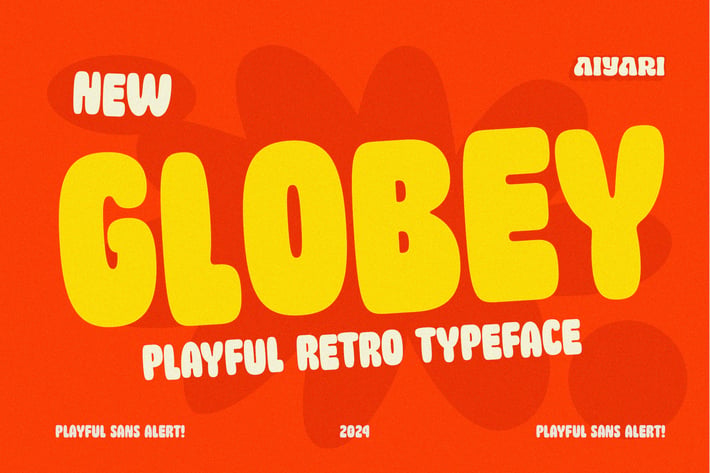
Globey Bouncy typeface
Introducing Globey a typeface influenced by vintage bubble letterforms which seamlessly blends a modern aesthetic with a playful approach. Globey adds an eye-catching flair to eye-catching designs, while keeping your visuals fresh and lively. With 676 ligatures, Ayr Globey encompasses everything you need to complete your creative projects.
Ayr Globey is best used for headings, logotype, quotes, apparel design, invitation, poster, flyers, greeting cards, packaging, book cover, printed quotes, cover album, movie, & etc